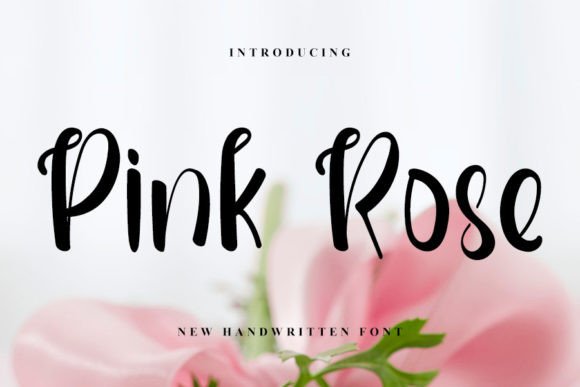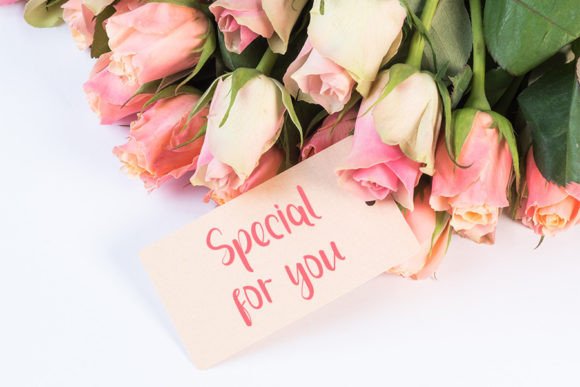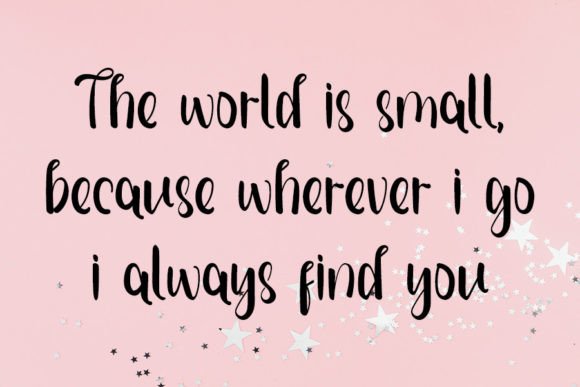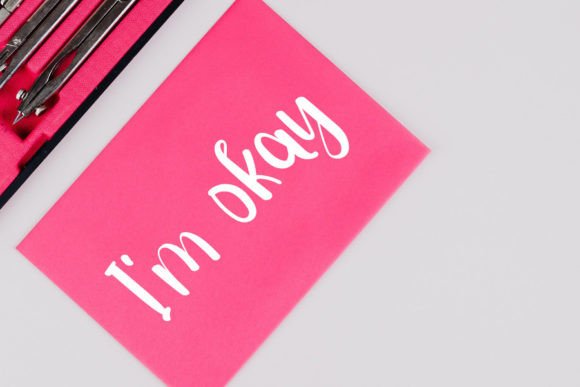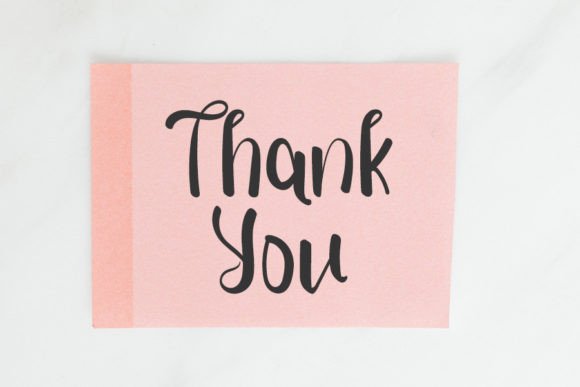
Pink Rose Font
About Pink Rose Font
Pink Rose Font is a stylish handwritten typeface that radiates charm and sophistication. Inspired by timeless calligraphy, this script delivers an elegant flow that enhances every word it touches. It brings together the beauty of tradition with a clean, modern twist—making it the perfect font for your most refined design ideas.
This font’s graceful curves and balanced strokes create a feeling of luxury. As a result, it’s a fantastic choice for designers who want to make a lasting impression while keeping the visual tone warm and approachable.
Ideal for a Variety of Elegant Uses
Whether you’re designing a wedding invitation, creating a logo, or crafting thank-you cards, Pink Rose Font adds a classic handwritten style that feels natural and expressive. It works beautifully for:
• Elegant stationery
• Product packaging
• Quotes and advertisements
• Greeting and business cards
• Branded merchandise or personal gifts
In each case, it helps elevate your work while keeping it authentic and visually appealing.
Additionally, its stylish nature means it pairs well with both serif and sans-serif fonts, giving you more creative freedom.